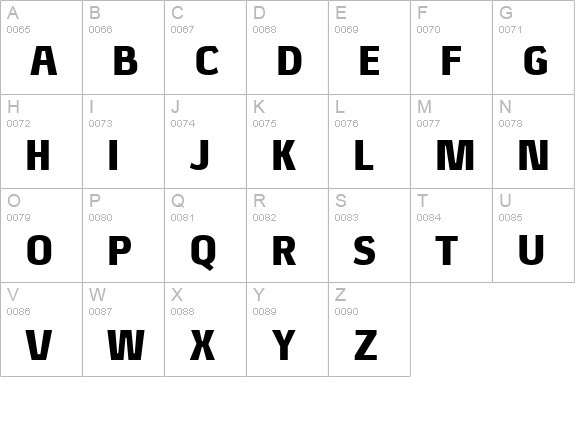
Xenu Black is a maximum-weight, dramatic variant in the Xenu typeface family \xE2\x80\x94 well suited to maximum-impact headlines, posters, and packaging.
Xenu Black font exudes a sense of boldness and sophistication with its sleek and modern design. This versatile typeface is perfect for making a statement in headlines, logos, and branding projects. The strong, blocky letterforms of Xenu Black demand attention and create a powerful visual impact. What sets Xenu Black apart is not only its striking appearance, but also the fact that it is available for free download at FontsMarket.com. This means that designers and creatives can easily access this impressive font without any cost, making it a valuable addition to any font library. Whether you're working on a digital project or a print design, Xenu Black offers a stylish and impactful solution that will elevate your work to the next level.